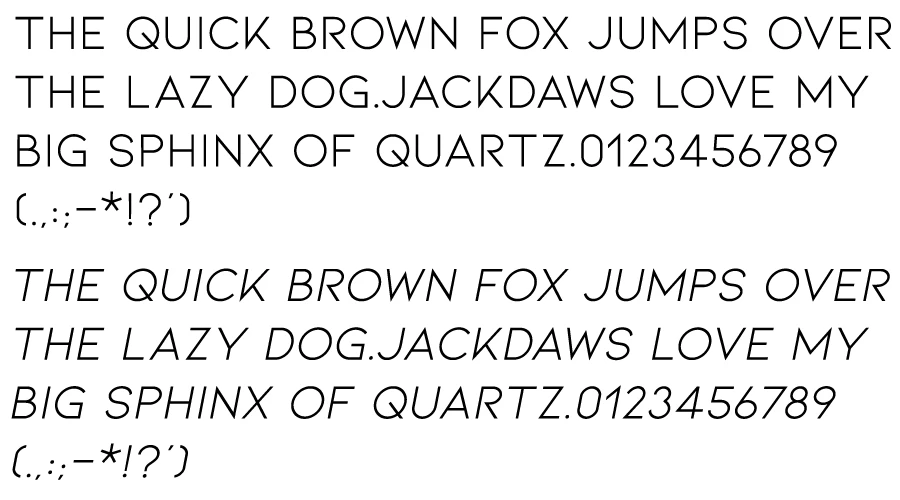
Nowadays, everyone is looking for modern fonts. So today, we have come up with an amazing modern font. Presenting Kiona!
Kiona is a sans serif font designed by Ellen Luff. This font is currently very popular due to its modern and geometric typeface. Kiona has four weights with Italics, numbers & punctuation, and extensive language support. It is perfect for on-screen legibility. Raleway Light and Nunito Sans Extra Light font have a similar-looking typeface like Kiona. Kiona is a simple looking typeface but, its crisp edges and modern touches make it significant.
Being a modern font, it is usable in all cases.
- Since this font has a polite look, this font can be used very comfortably in official work. It is easily usable in official documents and printing.
- This font is also useful for designing. Kiona works great in branding, logos, headlines, high fashion. The different weights give you a full range to explore a whole host of applications, from a tech startup, local events to sports matches.
So it can be said that this font will come in handy in all your work.
| Style | Sans serif |
| Author | Ellen Luff. |
Font Family
- Kiona Light.
- Kiona Bold.
- Kiona Semi-Bold.
- Kiona Regular.
What type of font is Kiona?
Ans: Kiona is a sans serif font designed by Ellen Luff with four weights.